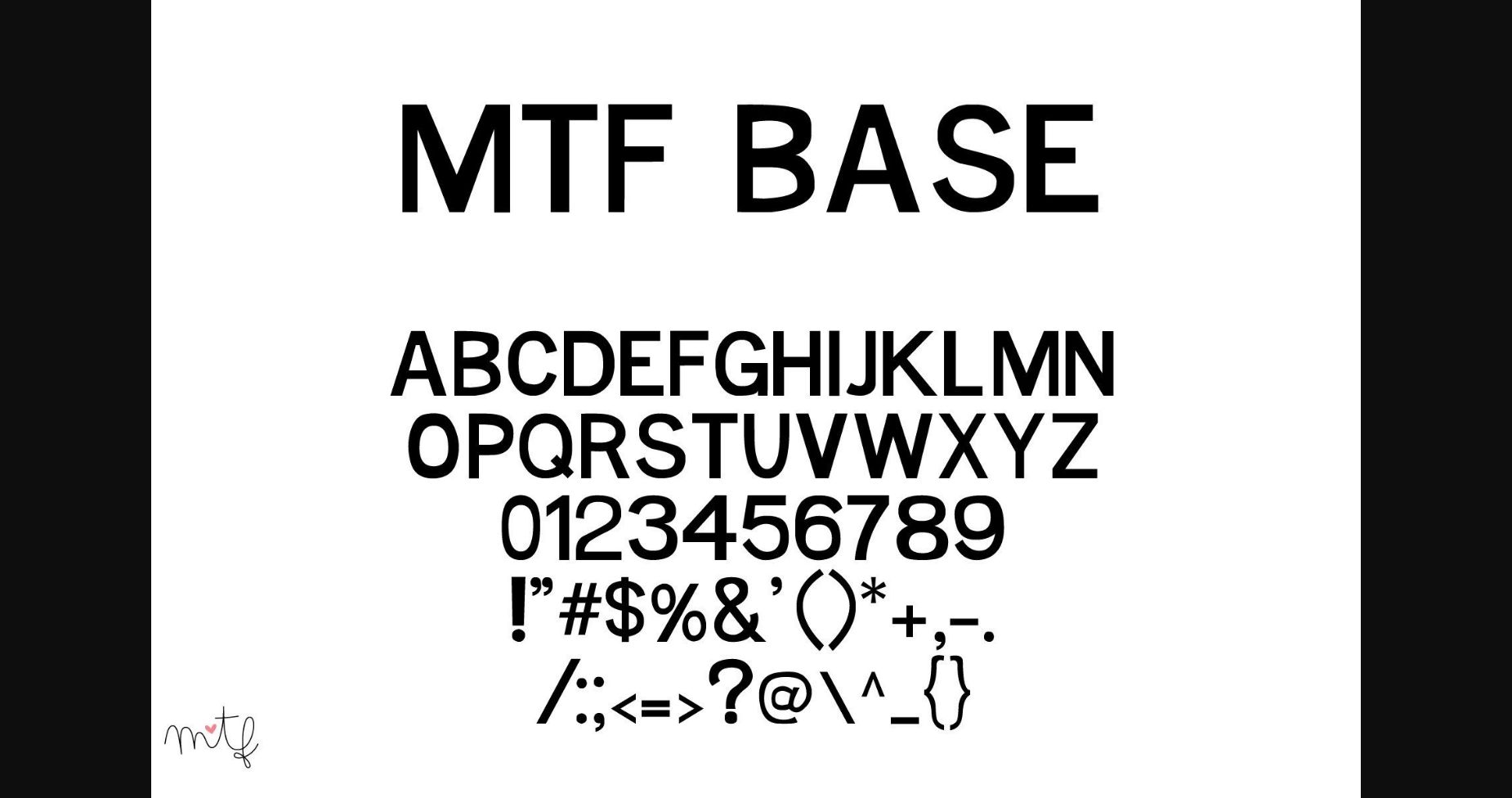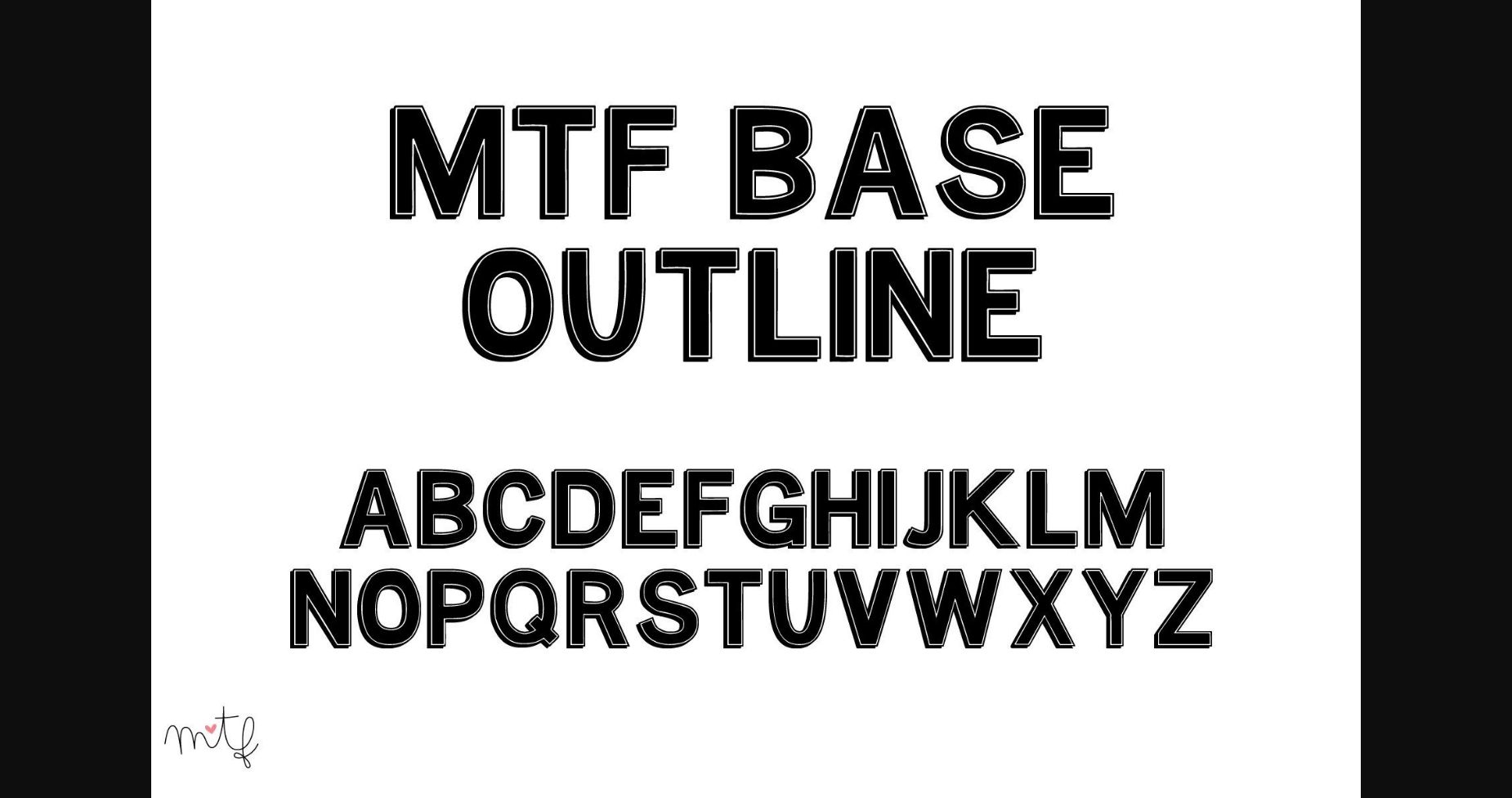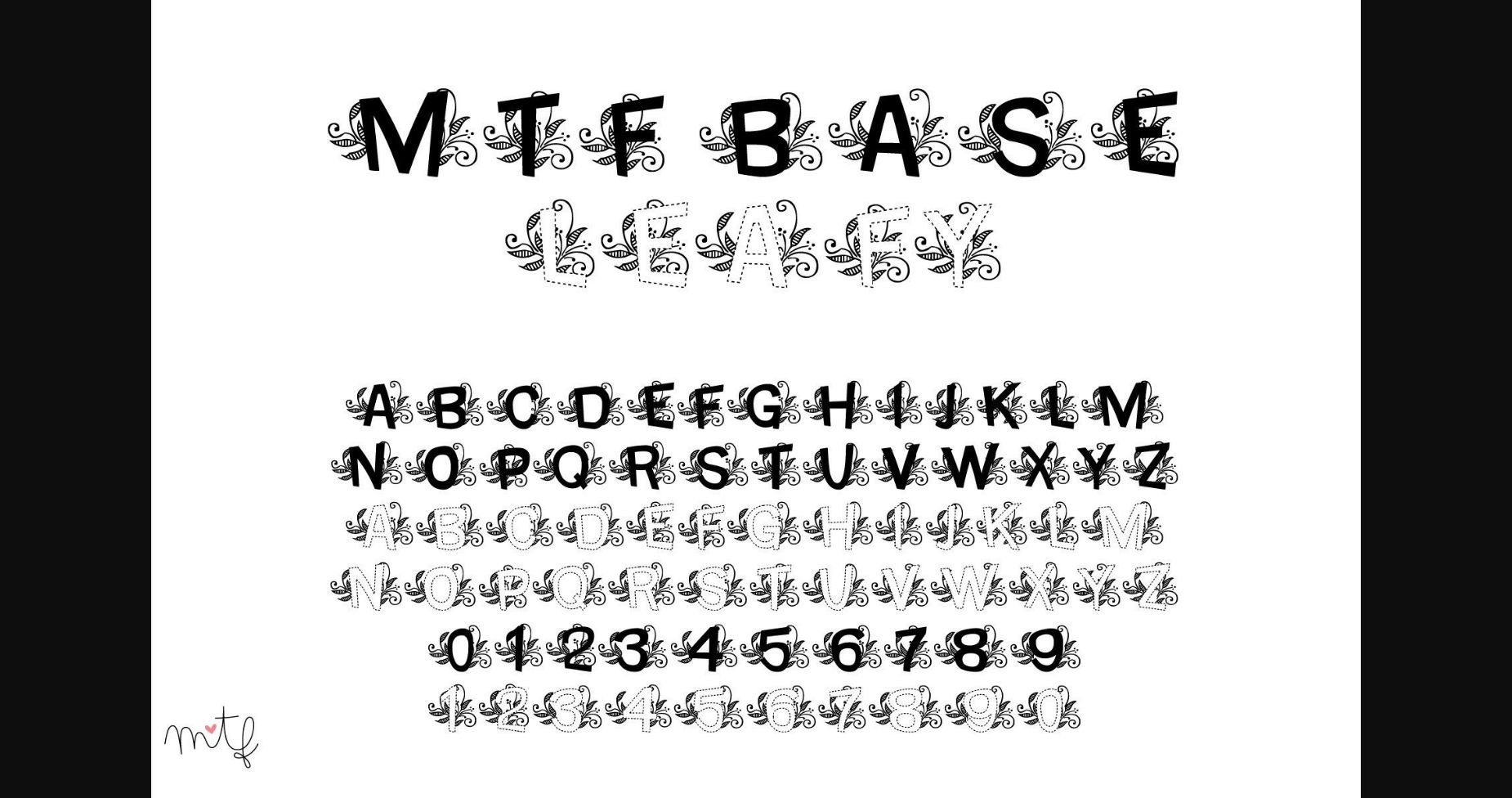
About Base Trio Font
Base is a splendid trio font (sans serif and decorative) that can add tons of personality to your designs. Use the sans serif for projects that need a solemn and impeccable look. Use the leafy version to have fun and explore your creativity!